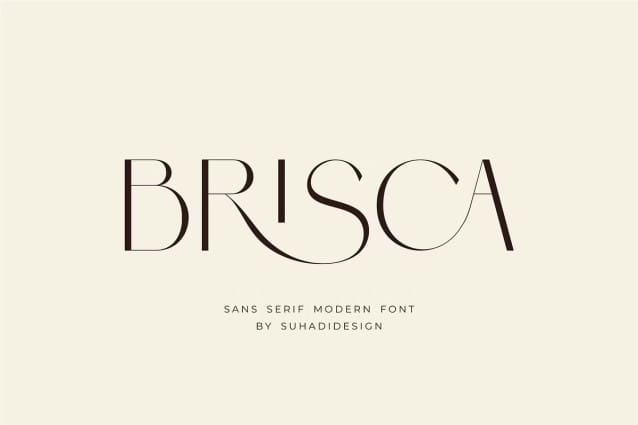
Brisca Font
Brisca font is a modern and beautiful sans serif font. With its modern style and equipped with letter combinations, this font has become a favorite font in the market. We keep this font look elegant, classy, ​​stylish. Brisca font is a good choice for cosmetics, beauty, branding, logos, letter marks, magazines, designs, books, publications, branding, brand names, business cards, social media, luxury design, journalism, branding, beauty and other projects. Briscafont is here to improve the quality of your designs.